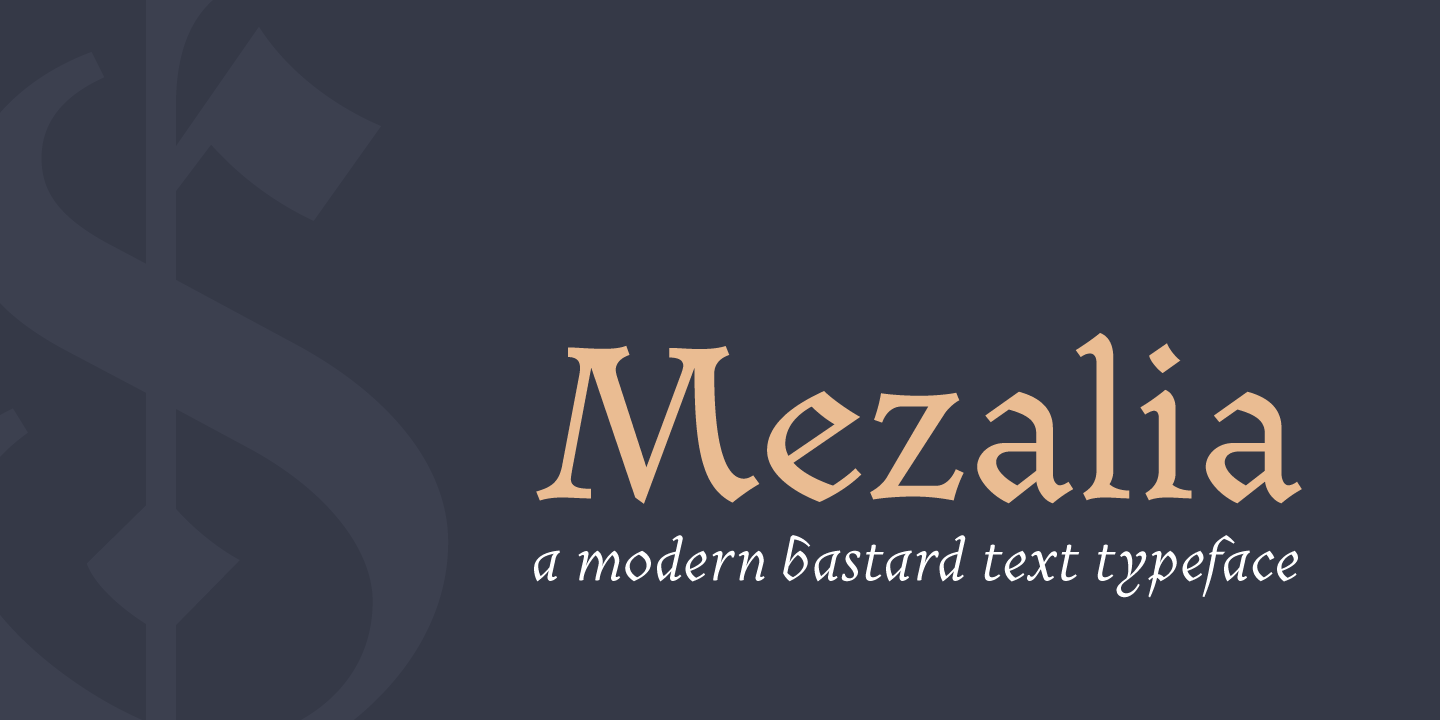
Mezalia Font is perfect for mystical jewelry branding, ethereal fashion collections, spiritual wellness centers, enchanted boutique signage, magical art gallery exhibitions, celestial product packaging, dreamy wedding invitations, and otherworldly creative projects.
This font is exciting because it channels mystical elegance and ethereal beauty with flowing letterforms that seem to dance between earthly grace and celestial wonder, creating an immediate sense of magic and transcendence. The Mezalia Font embodies the spirit of enchantment and spiritual connection, transforming ordinary text into spellbinding expressions that captivate audiences seeking beauty, mystery, and deeper meaning in their visual experiences.
The Mezalia Font family includes enchanting variations such as Regular, Bold, Light, Mystical, Italic, Ethereal, Condensed, and Extended versions, providing mystical designers with comprehensive tools to create magical typography that celebrates spiritual beauty and otherworldly elegance across all enchanted applications and celestial communications.
Embrace mystical beauty with Mezalia Font Free Download that brings ethereal elegance to every magical design project. This enchantingly crafted typeface combines mystical aesthetics with practical functionality, making it perfect for spiritual brands, metaphysical businesses, and artists celebrating the mysterious and transcendent aspects of human experience. The font's flowing character design ensures your message feels magical and inspiring while maintaining excellent readability across all spiritual applications. Whether you're developing mystical brand identities, creating ethereal marketing materials, or designing communications that celebrate spiritual beauty, Mezalia Font delivers the enchanting typography that resonates with audiences seeking deeper meaning and transcendent experiences. Its versatile design works beautifully across digital and print media while preserving the mystical grace that makes spiritual communications feel genuinely magical and worthy of the wonder that comes from connecting with the mysterious and beautiful aspects of existence that inspire the human spirit.